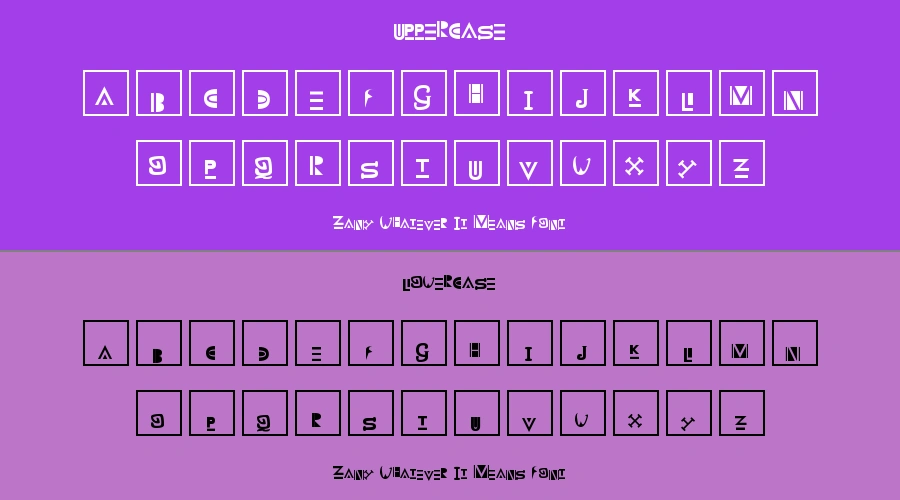
About Zany Whatever It Means Font
Zany Whatever It Means Font embodies typographic excellence through its masterful combination of monoline strokes and longevity. Created for social media content, this typeface delivers exceptional personality and cultural relevance across all applications. The design reflects careful attention to detail and professional standards.
Advanced capabilities include distinctive high x-height and versatile swash characters, giving designers creative control. When used in warning labels, Zany Whatever It Means Font exhibits remarkable detail retention. The harmonious balance between joint construction and historical references sets this typeface apart.